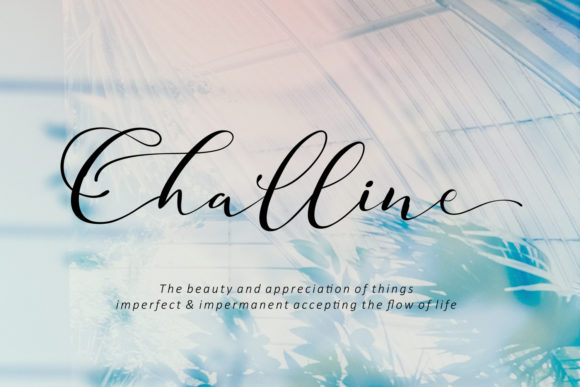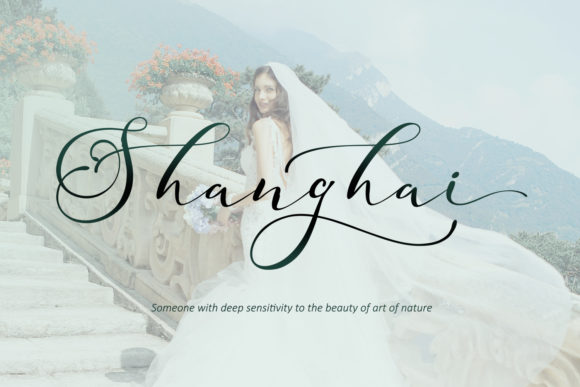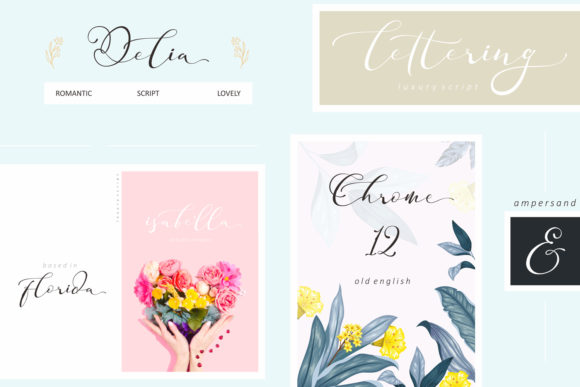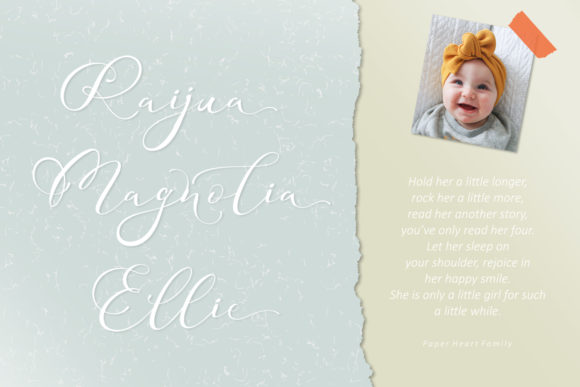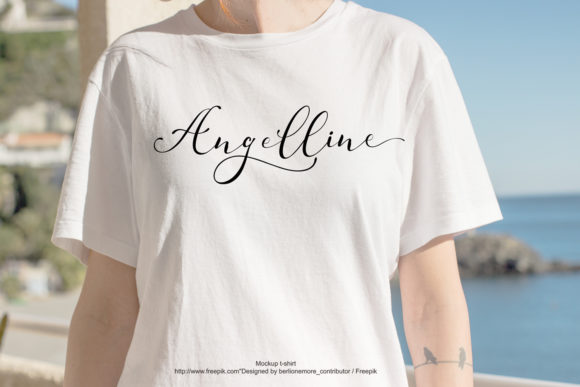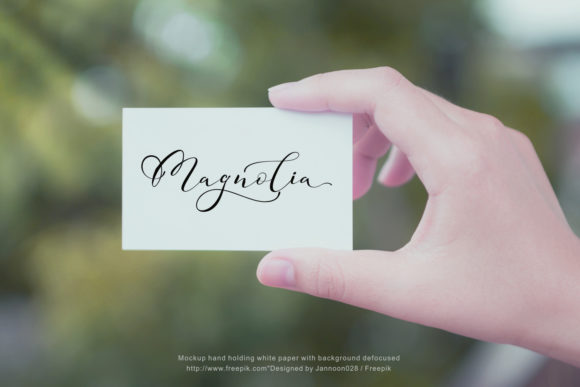
Introducing Adonessia Font: The Sweet and Cool Script Font You Need
Are you a designer or crafter looking for a font that can add a touch of modern style to your projects? Look no further than Adonessia Font. This sweet and cool script font is perfect for anyone who wants to create beautiful and eye-catching designs. In this article, we’ll take a closer look at Adonessia Font and explore its features, benefits, and uses.
What is Adonessia Font?
Adonessia Font is a modern script font that is designed to be both elegant and playful. Its unique and flowing lines make it perfect for a variety of design projects, from branding and advertising to crafting and scrapbooking. The font is highly legible and can be used to create a range of effects, from subtle and sophisticated to bold and eye-catching.
Key Features of Adonessia Font
So, what makes Adonessia Font so special? Here are some of its key features:
- Modern style: Adonessia Font has a distinctly modern feel that is perfect for designers and crafters who want to create contemporary designs.
- Sweet and cool: The font has a sweet and cool vibe that makes it perfect for projects that require a touch of personality and whimsy.
- Script style: Adonessia Font is a script font that features flowing lines and elegant curves.
- Highly legible: Despite its ornate style, Adonessia Font is highly legible and can be used to create a range of effects.
Benefits of Using Adonessia Font
So, why should you choose Adonessia Font for your design projects? Here are some of the benefits of using this amazing font:
- Adds a touch of modern style: Adonessia Font can add a touch of modern style to any design project, making it perfect for designers and crafters who want to create contemporary designs.
- Perfect for branding and advertising: The font’s unique and flowing lines make it perfect for branding and advertising projects that require a touch of personality and whimsy.
- Great for crafting and scrapbooking: Adonessia Font is also perfect for crafting and scrapbooking projects that require a touch of elegance and sophistication.
In conclusion, Adonessia Font is a sweet and cool script font that is perfect for designers and crafters who want to add a touch of modern style to their projects. Its unique and flowing lines make it perfect for a variety of design projects, from branding and advertising to crafting and scrapbooking. With its highly legible design and ease of use, Adonessia Font is a must-have for anyone who wants to create beautiful and eye-catching designs.
- What is Adonessia Font?
- Adonessia Font is a modern script font that is designed to be both elegant and playful.
- What are the benefits of using Adonessia Font?
- The benefits of using Adonessia Font include adding a touch of modern style to your designs, perfect for branding and advertising, great for crafting and scrapbooking, and easy to use.